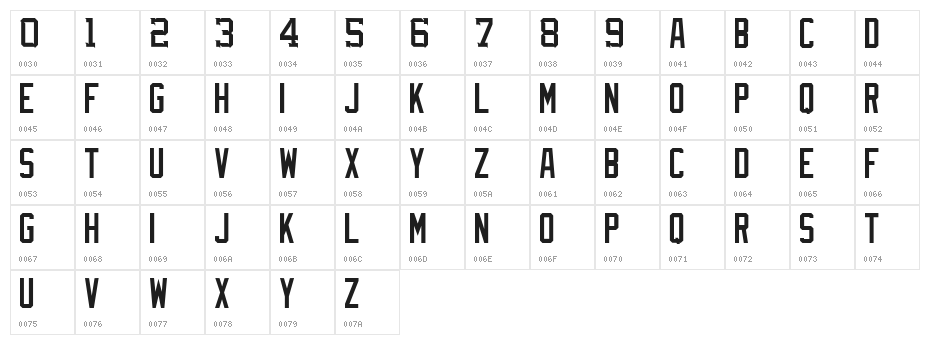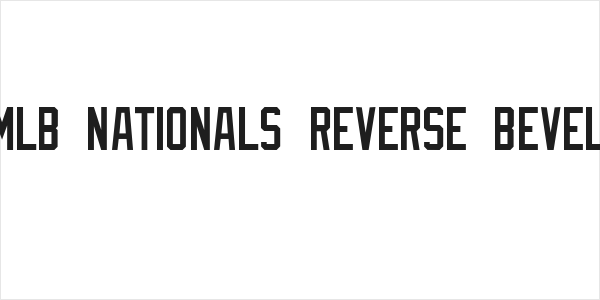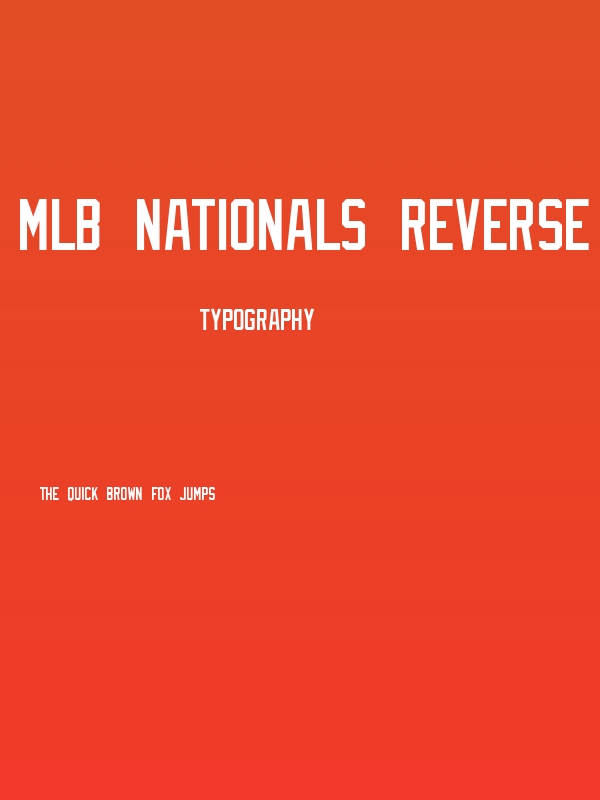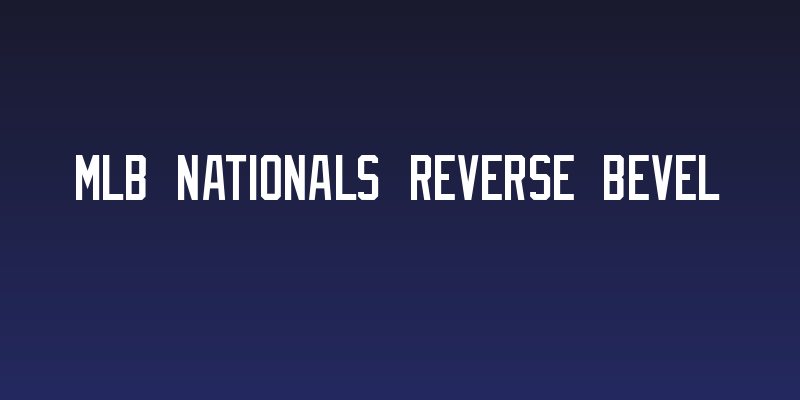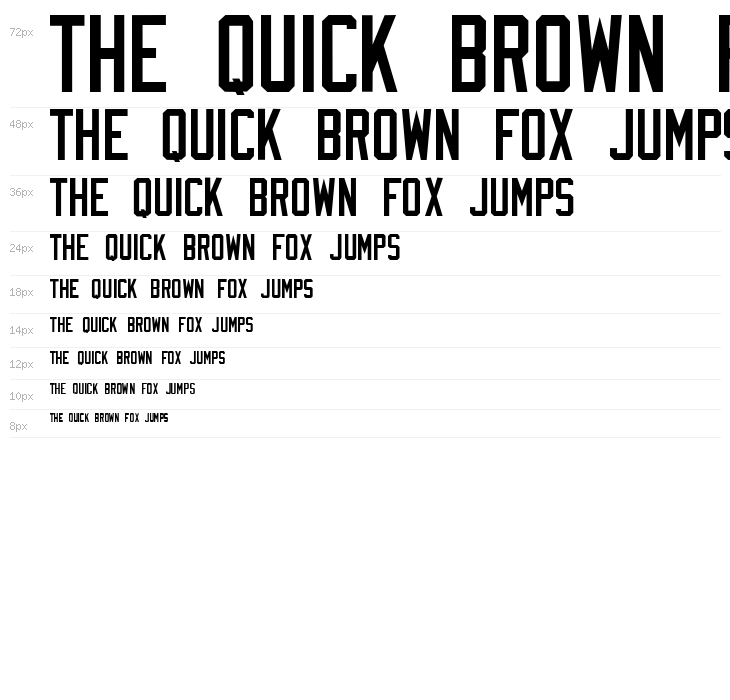
MLB Nationals Reverse Bevel Font
| 用途 | Logos, Headlines, Sports Branding |
| おすすめプロジェクト | This font is perfect for sports branding, team logos, merchandise, and promotional materials where a strong, bold statement is needed. |